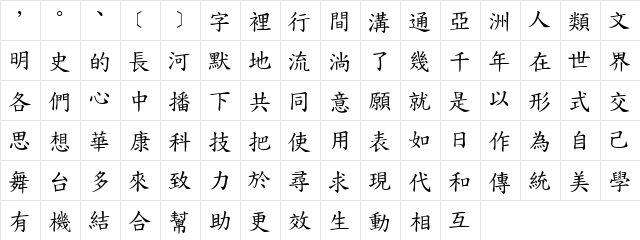
DFBiaoKaiShu1B Regular
Design Context for DFBiaoKaiShu1B Typeface
DFBiaoKaiShu1B takes a measured approach to typography — its balanced proportions and neutral character make it a reliable workhorse for both digital and print work.